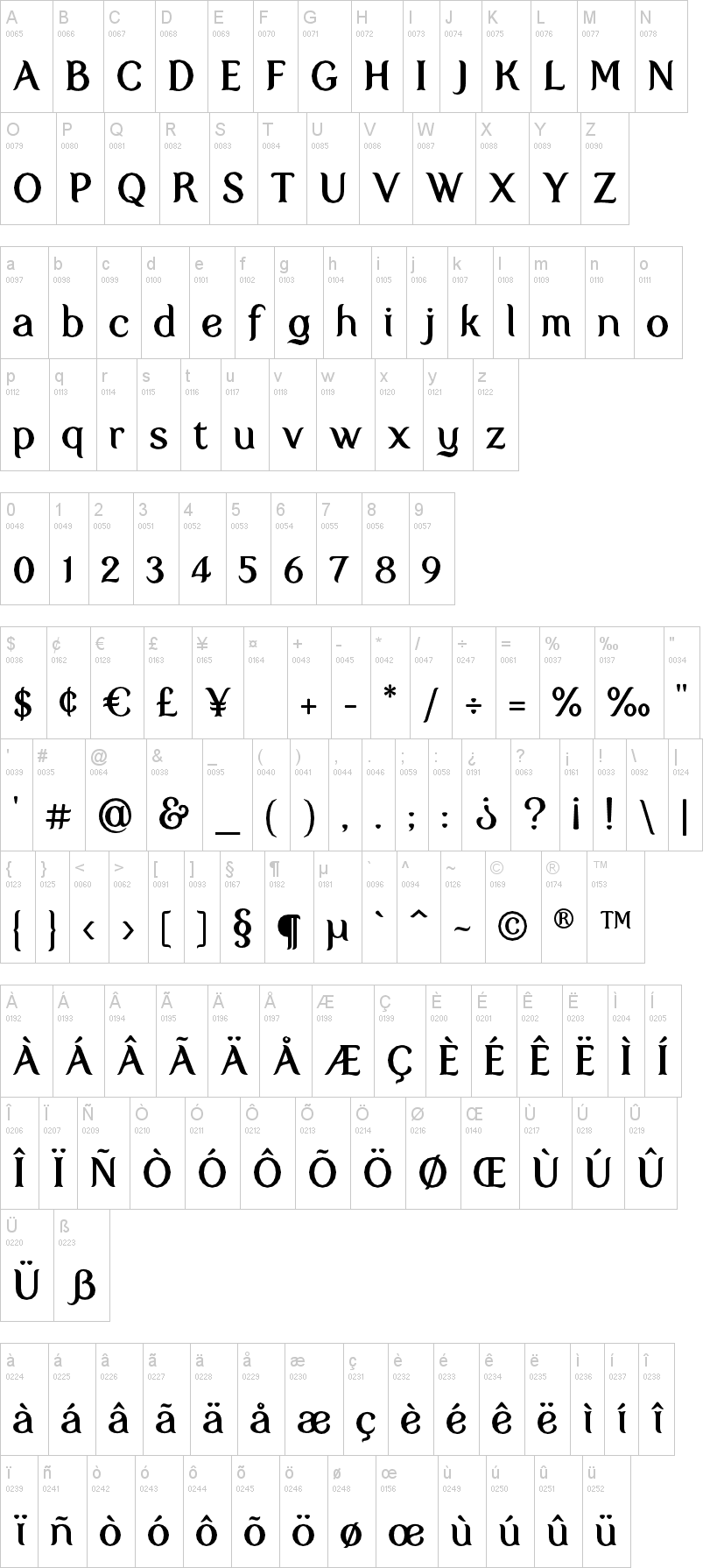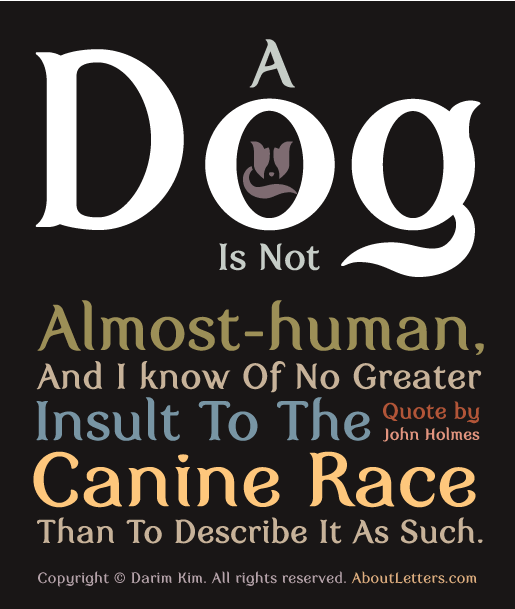
Шрифт My Fair Cody
There are light, regular, bold weight of My Fair Cody (v.3.0) are available.
The font was designed in memory of her beloved border collie, Cody. Initially designed as an illustrative font, the lower cases were adopted to create this elegant typeface.
There are light, regular, bold weight of My Fair Cody (v.3.0) are available.
The font was designed in memory of her beloved border collie, Cody. Initially designed as an illustrative font, the lower cases were adopted to create this elegant typeface.